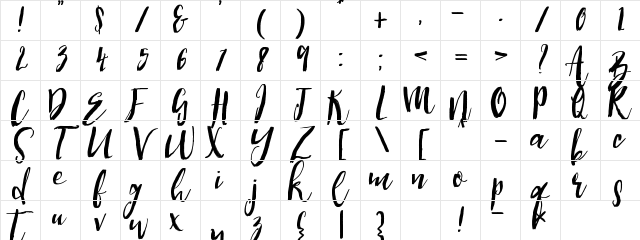
Sorrella Regular
Sorrella Family
Design Context for Sorrella
Sorrella is a composed and adaptable typeface that performs quietly and consistently across a wide range of design contexts.